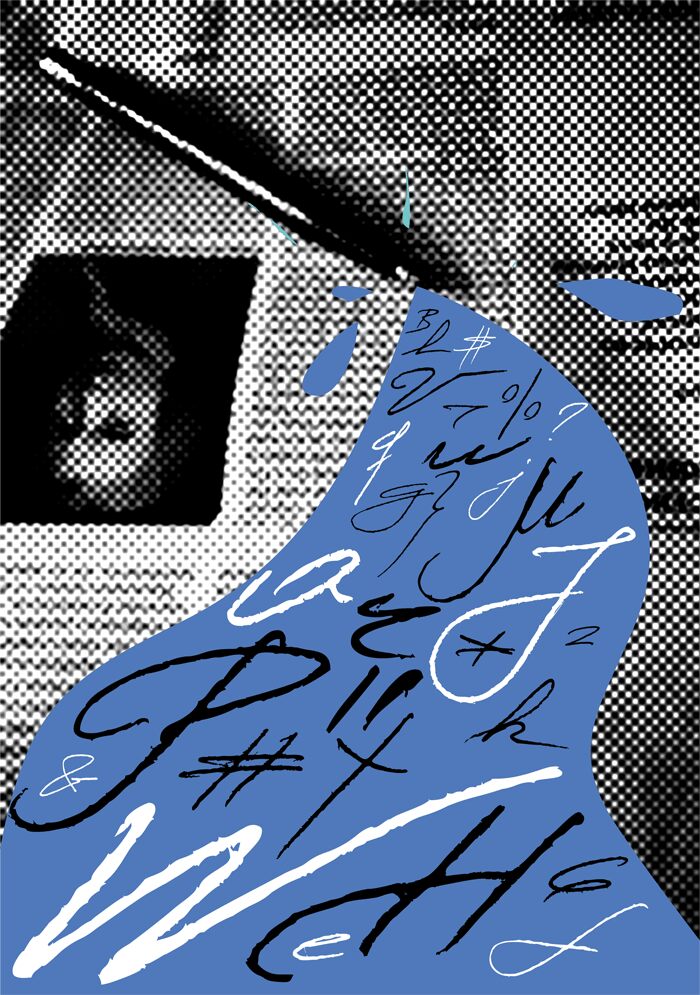
Miodrag by Milena Gajovic is a free calligraphic script with the scale and flourish of an oversized signature. Long, looping strokes travel well beyond the letters, and sharp changes in direction keep the line lively. Its extreme joins give the writing a rapid, personal finish.
Fashion labels and boutique beauty brands could use it for logos, packaging, and campaign graphics that favor expressive lettering over restraint. It readily evokes luxury and celebrity culture.